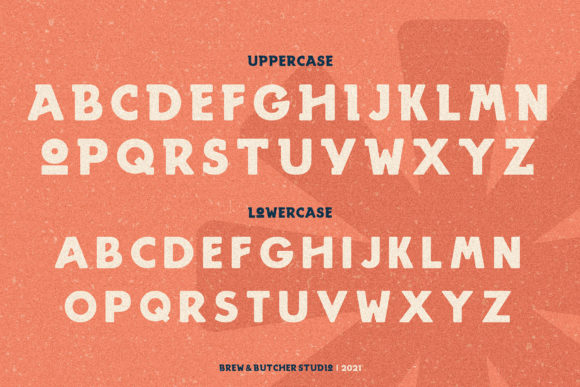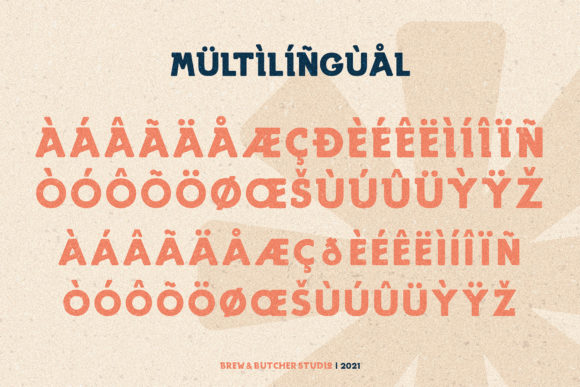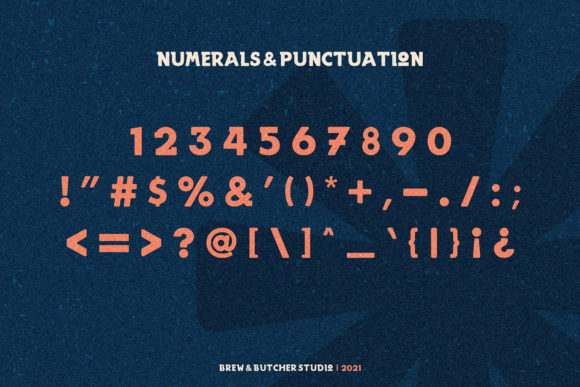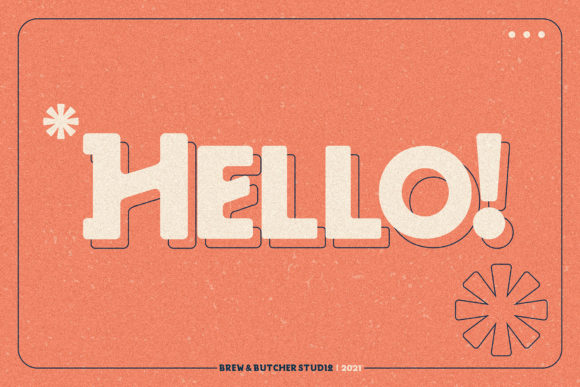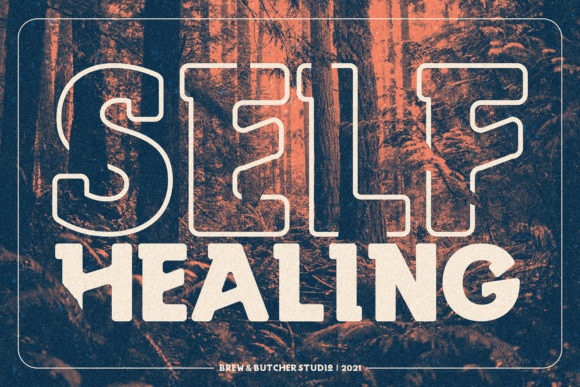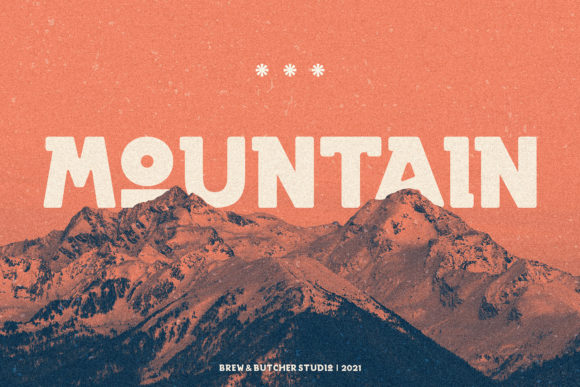
The Perfect Blend of Vintage Charm and Bold Expression
Have you ever stumbled upon an old, dusty typewriter or a vintage book cover that instantly sparks your creativity? For designers, these moments can be a treasure trove of inspiration. They remind us that even in the digital age, there’s still a place for the tactile, the classic, and the bold. And that’s exactly where the Bromys Font comes in – a thick lettered, vintage styled display font that’s perfect for adding a touch of nostalgia to your designs.
Bromys Font is designed to work incredibly well on labels, branding, and covers, making it a valuable addition to any designer’s toolkit. Its bold and expressive style lends itself perfectly to conveying a sense of confidence and personality, whether you’re creating a product label or a magazine cover. By incorporating the Bromys Font into your designs, you can add a unique touch that sets your work apart from the crowd.
Bromys Font Key Features
- Font Family: Bromys Font is a sans-serif typeface designed for modern digital use.
- Unique Characteristics: Bromys Font features a clean, modern design with a subtle rounded edge, making it suitable for use in digital interfaces, branding, and publishing.
Bromys Font Review
Overall, I was quite impressed with the Bromys Font, but as with any design element, it’s not perfect. ✨ Let’s start with the good stuff:
- The font has a unique and modern design that’s perfect for digital products and websites.
- The bold and light weights are well-designed and offer a good contrast.
- The font is highly legible, even at smaller sizes.
- The font may not be suitable for print materials due to its digital origins.
- The font is not as versatile as some other fonts, with limited language support.
- The font may not be as readable in certain colors or backgrounds.
Overall, I think the Bromys Font is a solid choice for digital projects, but it’s not the best option for every situation. It’s a good addition to any designer’s toolkit, but it’s essential to consider the limitations and use it in the right context.
Tips for Getting the Most Out of the Bromys Font
Use the Bromys font to create unique and eye-catching headings and titles.
Combine the Bromys font with other fonts to create a custom look.
Use the Bromys font for:
Headings and titles in graphic design projects.
Creating unique and eye-catching logos.
Adding a touch of elegance to business cards and resumes.